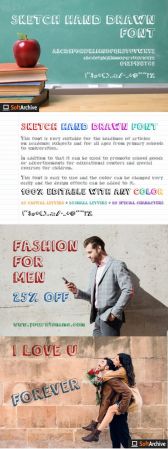
DesignOptimal - Sketch Hand Drawn Font
DesignOptimal.com - Sketch Hand Drawn Font
Sketch Hand Drawn is a fun and original handwritten font. Use this gorgeous and unique font to bring any DIY project to life!